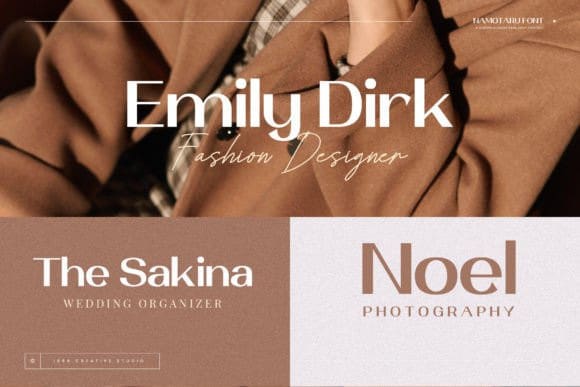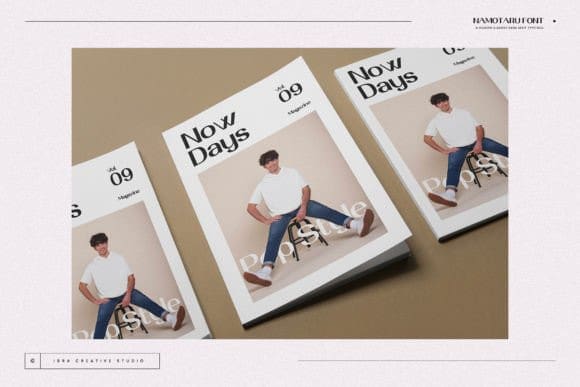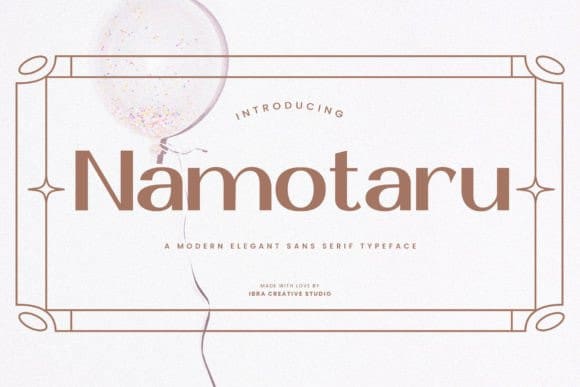
Namotaru Font
Namotaru Font, an elegant sans-serif typeface, embodies sophistication and refinement in its graceful design. With clean lines and subtle curves, each letter exudes a timeless charm that seamlessly blends modernity with classic aesthetics. The balanced proportions and delicate strokes of Namotaru lend an air of understated elegance to any typographic composition, making it a versatile choice for a wide range of design projects.